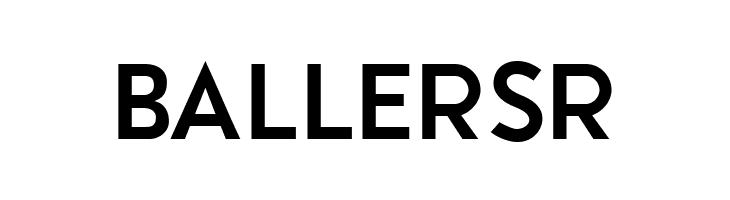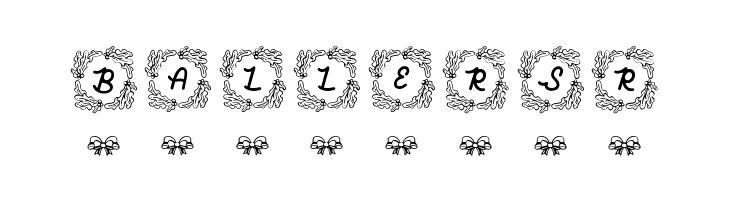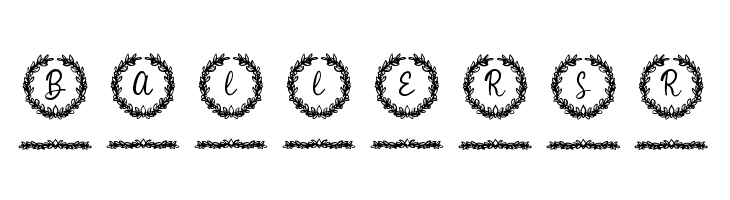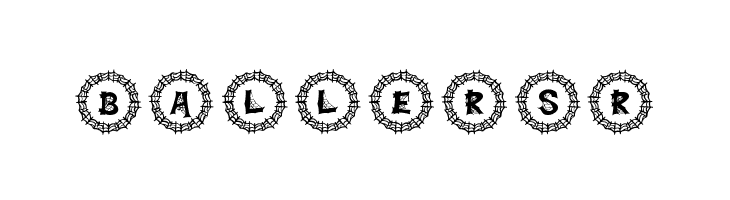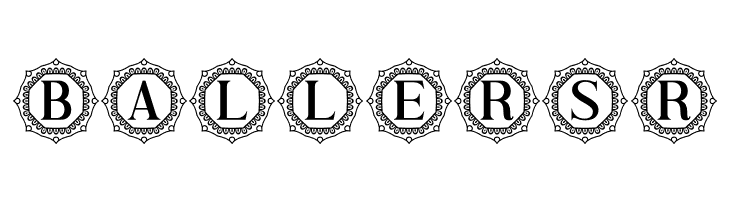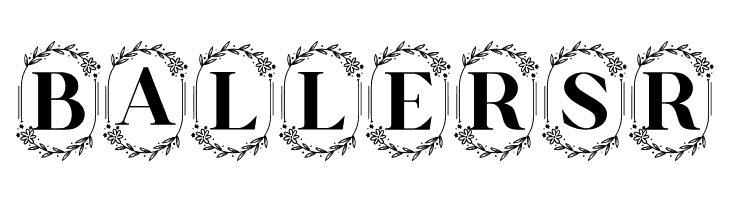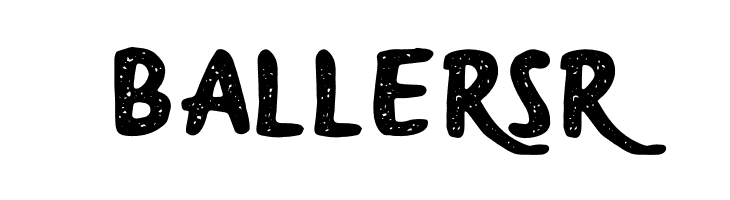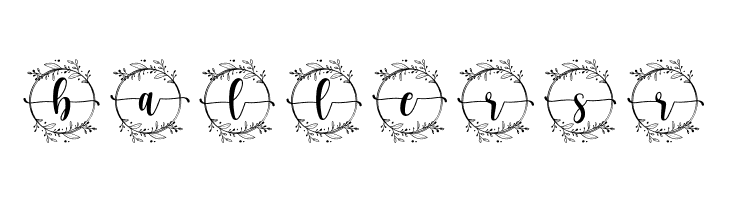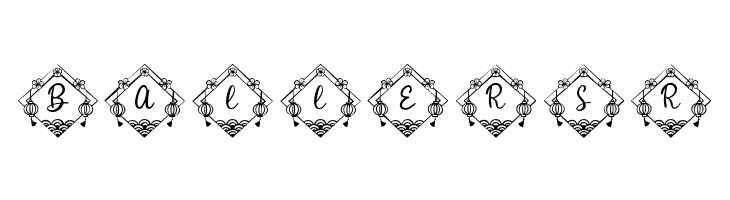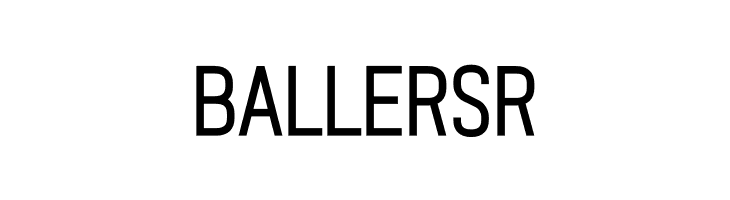
• Web Hebrew Monospace
• Webi Halloween Monogram Regular
A decorative font with letters encased in wreath-like designs, ideal for festive themes.
• Wedding Monogram
An elegant script font encased in decorative wreaths, perfect for monograms and invitations.
• White Christmas Monogram Reg
A decorative script font with letters encased in wreaths, perfect for festive designs.
• Winter Christmas Monogram
Decorative script font with festive, swirling monogram style.
• Winter Monogram Demo
Ornate winter monogram font with festive illustrations.
• Winter Prime Monoline
A graceful monoline script font with smooth, flowing lines and consistent stroke width.
• Winter Ribbon Monogram Regular
An ornate, decorative font with each letter encased in a winter-themed wreath.
• Yokata Chinese Monogram Regular
An ornate and decorative font with characters enclosed in diamond-shaped frames.
• YumaroRough
A playful, textured font with a hand-drawn, casual style.
• Yumeira Monogram
A decorative serif font with ornate monogram-style borders around uppercase letters.
• Zen Monolith Regular
A bold, geometric font with angular, monolithic letterforms.
• Zeronero Black
A bold, geometric font with thick strokes and angular forms.
• Zeronero Black
• ZF2334 After A Rain Regular
( ZF2334 After a Rain is a display, geometric and condensed sans-serif font. It comes with a monoline width except for some connecting strokes. This font comes in a single style and includes a multilangual character set. License : Zed Fonts 2334 dedicates )
A modern, elegant font with balanced characters and clear readability.
• ZF2334 Squarish
( Updated : Multilingual support has been added; The Italic style has been removed as it looks too weird; 2 styles have been added : Light and Hairline. ZF2334 Squarish is a condensed monoline sans-serif font. It is similar to Helvetica Condensed. Lice )
A geometric, modern font with a squarish design and consistent structure.
• ZF2334 Squarish Bold
( Updated : Multilingual support has been added; The Italic style has been removed as it looks too weird; 2 styles have been added : Light and Hairline. ZF2334 Squarish is a condensed monoline sans-serif font. It is similar to Helvetica Condensed. Lice )
A bold, geometric font with a squarish design, ideal for modern and impactful projects.
• ZF2334 Squarish Hairline
( Updated : Multilingual support has been added; The Italic style has been removed as it looks too weird; 2 styles have been added : Light and Hairline. ZF2334 Squarish is a condensed monoline sans-serif font. It is similar to Helvetica Condensed. Lice )
A geometric, hairline font with squared edges and a modern, minimalistic style.
• ZF2334 Squarish Light
( Updated : Multilingual support has been added; The Italic style has been removed as it looks too weird; 2 styles have been added : Light and Hairline. ZF2334 Squarish is a condensed monoline sans-serif font. It is similar to Helvetica Condensed. Lice )